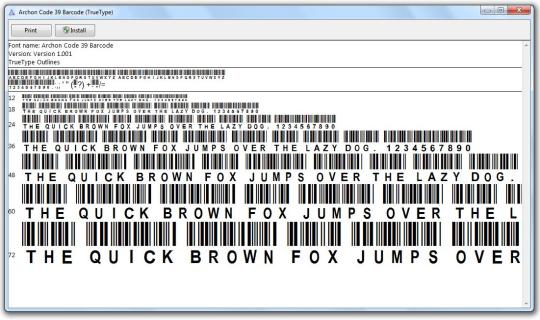
The Archon Code 39 Barcode Truetype font lets you quickly and easily create your own barcodes for personal or business use. There are absolutely no restrictions. Its not a demo, there is no limited timed trial, and your business does not have to make under a certain dollar amount to use it.
Once you create barcodes, you can then print them out using sticker labels and attach the codes to your items. Now, your items can be quickly and easily scanned with any barcode scanner. Paired with inventory software, you can use the font and labels to create your own internal inventory tracking system. Its perfect if you want to finally organize your inventory and create a barcoding system for your small business.
The font supports all letters and numbers plus characters such as dashes and periods.
Just as a reminder, for your codes to work with a scanner, you have to include the "*" characters at the beginning and end of your code. This tells the scanner when to start and stop scanning.
For example, a barcode made from using the text *inFlowInventory* will produce "inFlow Inventory" when scanned (without the * symbols).